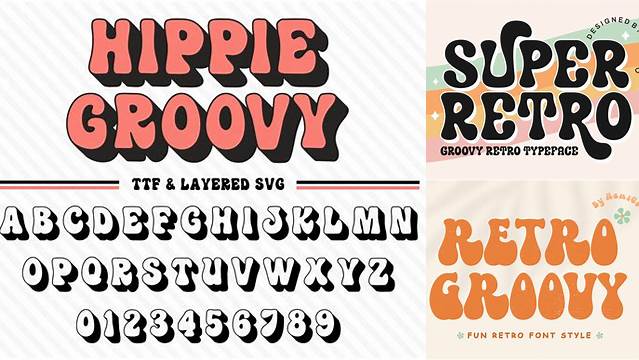
Free Groovy Retro Fonts: Download Vintage Style Now!
Hey guys! Are you looking to infuse your designs with a bit of that funky, vintage flair? Well, you've come to the right place! We're diving headfirst into the world of groovy retro fonts, and the best part? We're talking about how to snag them for free. From the psychedelic vibes of the 60s to the disco fever of the 70s, retro fonts can add a unique touch to your projects. Let's get started!
1. What Defines a Groovy Retro Font?
So, what exactly is a groovy retro font? It's more than just an old-looking typeface. These fonts typically feature rounded edges, bold strokes, and a playful, almost whimsical design. Think about the fonts you'd see on old album covers, vintage posters, and classic advertisements. They often evoke a sense of nostalgia and fun. Common characteristics include swashes, ligatures, and alternate characters that give designers plenty of creative freedom. The key is to find a font that captures the essence of a bygone era while still being legible and functional for modern design needs. A great groovy retro font will immediately transport your audience back in time, creating a strong emotional connection and visual impact. When selecting a font, consider the specific era you're trying to emulate. A font inspired by the early 60s might have a different feel than one influenced by the late 70s. The right choice can make all the difference in achieving the desired effect for your project. Plus, don't be afraid to experiment with different combinations to find the perfect fit!
2. The Appeal of Vintage Typography
Vintage typography has a certain charm that's hard to resist. It brings a sense of history and authenticity to any design. The imperfections and unique characteristics of groovy retro fonts are part of what makes them so appealing. In a world of sleek, modern designs, vintage typography stands out by offering a touch of warmth and personality. Whether you're working on a logo, a website, or a print project, using a groovy retro font can instantly elevate your design and make it more memorable. The resurgence of interest in vintage styles is driven by a desire for something different, something that feels genuine and handcrafted. These fonts tell a story, evoking memories of the past and creating a sense of connection with the audience. Furthermore, vintage typography can be incredibly versatile. It can be used to create a sense of fun and playfulness, or it can be used to add a touch of sophistication and elegance. The key is to choose a font that complements your overall design and effectively communicates your message. So, embrace the appeal of vintage typography and let it bring your designs to life.
5. Key Features of a High-Quality Retro Font
What makes a groovy retro font truly shine? Several key features distinguish a high-quality retro font from a mediocre one. First and foremost, the design should be authentic and capture the essence of the era it's trying to emulate. The font should also be legible and functional, even at smaller sizes. Look for fonts that include a full set of characters, including uppercase and lowercase letters, numbers, punctuation, and symbols. Kerning and spacing should be carefully considered to ensure that the font looks balanced and harmonious. Additionally, a high-quality retro font may include alternate characters, ligatures, and swashes to give designers more creative options. The overall craftsmanship of the font should be evident in the details, from the smoothness of the curves to the consistency of the line weights. A well-designed retro font will not only look great but also be easy to use and integrate into your designs. So, when you're evaluating a retro font, pay attention to these key features to ensure that you're choosing a font that will elevate your project and make it truly stand out.
6. Using Retro Fonts in Logo Design
Groovy retro fonts can be an excellent choice for logo design, especially if you're aiming for a vintage or nostalgic feel. A well-chosen retro font can instantly convey a sense of history, authenticity, and personality. When using retro fonts in logo design, it's important to consider the overall brand identity and target audience. The font should align with the brand's values and resonate with its customers. Simplicity is often key, as a clean and legible logo will be more memorable and versatile. Experiment with different font combinations and variations to find the perfect balance. Pay attention to kerning and spacing to ensure that the logo looks polished and professional. Additionally, consider the color palette and other design elements to create a cohesive and visually appealing logo. A retro font can be a powerful tool for creating a unique and memorable brand identity, but it's important to use it strategically and thoughtfully. By carefully considering these factors, you can create a logo that not only captures the essence of the brand but also stands the test of time.
7. Retro Fonts for Website Design
Incorporating groovy retro fonts into your website design can add a unique touch and create a memorable user experience. Retro fonts can be used for headings, body text, or even as decorative elements to enhance the overall visual appeal of the site. When using retro fonts for website design, it's important to consider readability and accessibility. Choose fonts that are easy to read on screens and ensure that the font sizes are appropriate for different devices. Pay attention to contrast and spacing to improve readability and prevent eye strain. Additionally, consider the overall design of the website and choose retro fonts that complement the other design elements. A well-chosen retro font can help create a cohesive and visually appealing website that captures the essence of the brand. However, it's important to use retro fonts sparingly and strategically to avoid overwhelming the user. By carefully considering these factors, you can create a website that not only looks great but also provides a positive user experience.
8. Retro Fonts in Print Materials
From posters to flyers, groovy retro fonts are a fantastic way to make your print materials pop. They add a touch of nostalgia and can instantly grab attention. When choosing a retro font for print, consider the overall design and message you want to convey. A bold, playful font might be perfect for a party invitation, while a more sophisticated font could be ideal for a vintage-inspired poster. Make sure the font is legible at the intended print size and that it complements the other design elements. Experiment with different colors and textures to enhance the retro feel. Whether you're creating a business card or a brochure, a well-chosen retro font can help your print materials stand out from the crowd and leave a lasting impression.
9. Pairing Retro Fonts with Modern Styles
Want to create a design that's both retro and modern? Pairing groovy retro fonts with modern styles can create a striking and unique look. The key is to find a balance between the old and the new. Try using a retro font for headings and a clean, modern font for body text. This creates a contrast that's both visually appealing and easy to read. You can also experiment with color palettes and design elements to further enhance the fusion of retro and modern styles. The goal is to create a design that feels both nostalgic and fresh, capturing the best of both worlds. By carefully considering the elements you are using you can create a visually appealing design.
10. Common Mistakes to Avoid When Using Retro Fonts
Using groovy retro fonts can be a lot of fun, but there are some common pitfalls to avoid. One of the biggest mistakes is overusing them. Too many retro fonts in one design can create a cluttered and overwhelming look. Another common mistake is choosing a font that's difficult to read. Legibility is always important, especially in body text. Additionally, be careful when pairing retro fonts with other fonts. The wrong combination can create a jarring and unpleasant effect. Always consider the overall design and message you want to convey and choose fonts that complement each other. By avoiding these common mistakes, you can ensure that your designs look polished and professional.